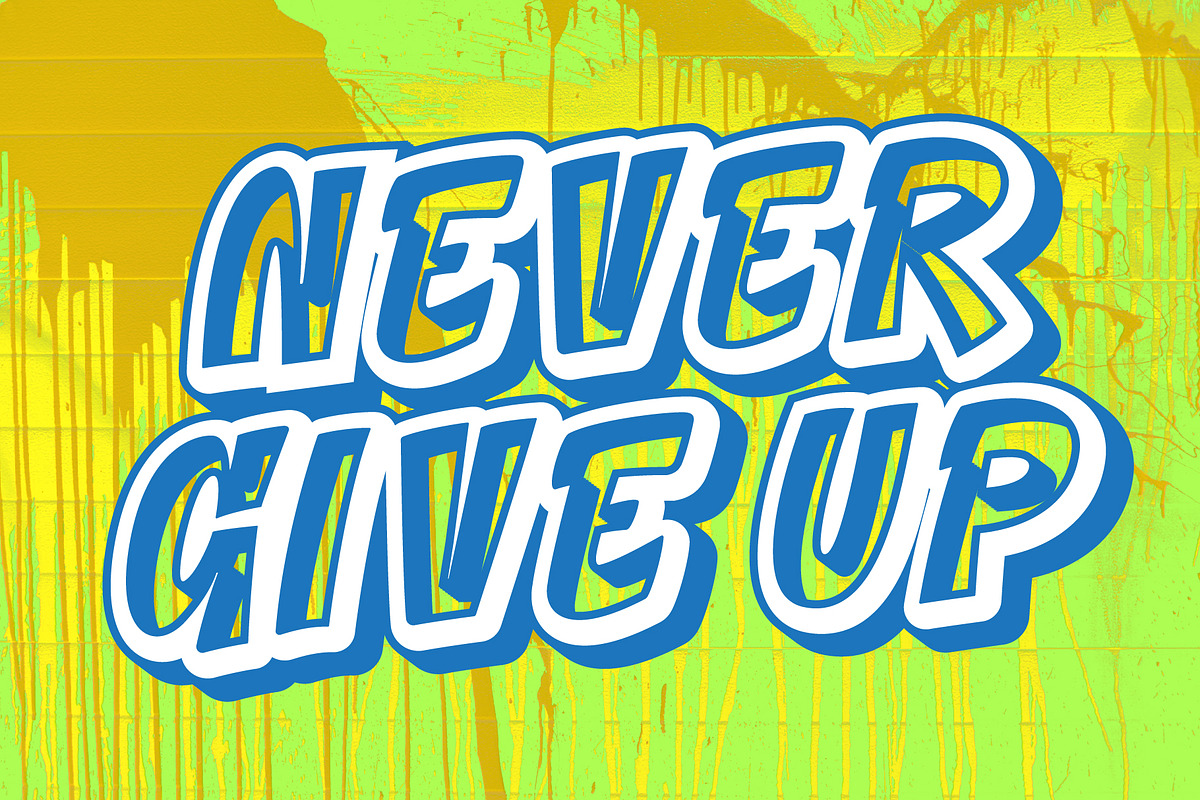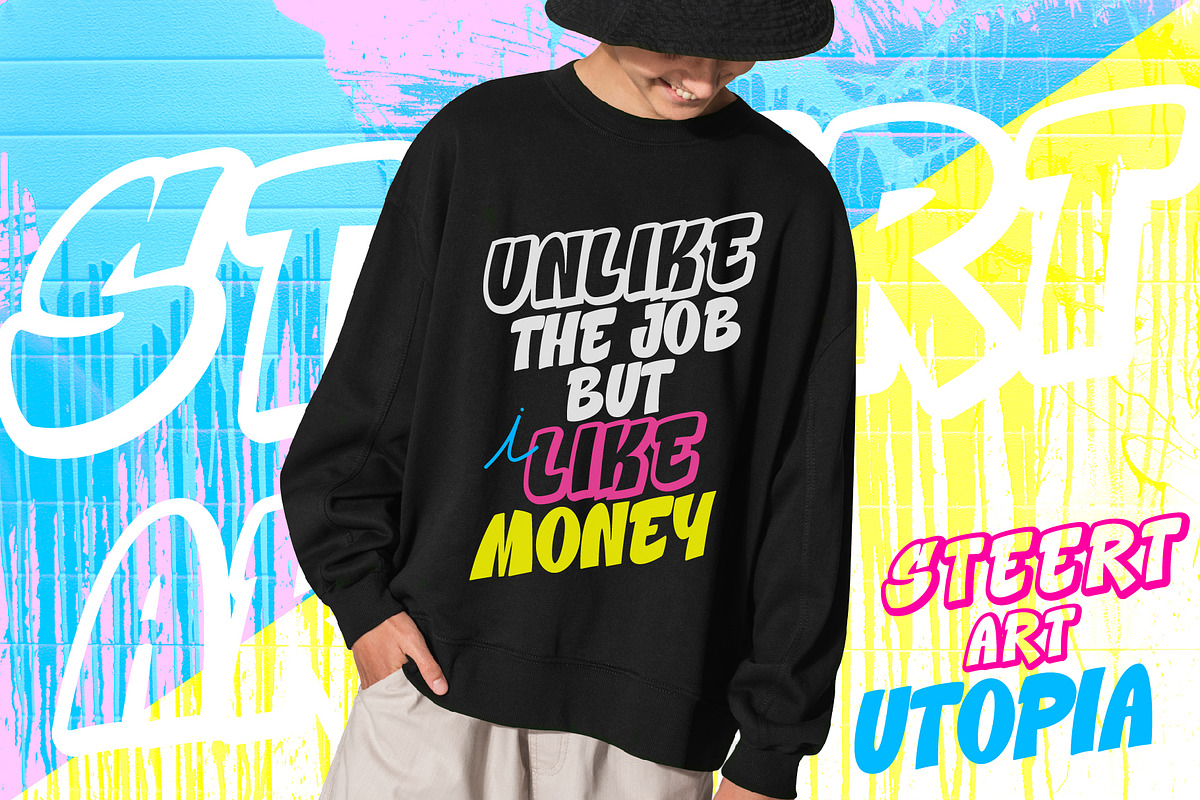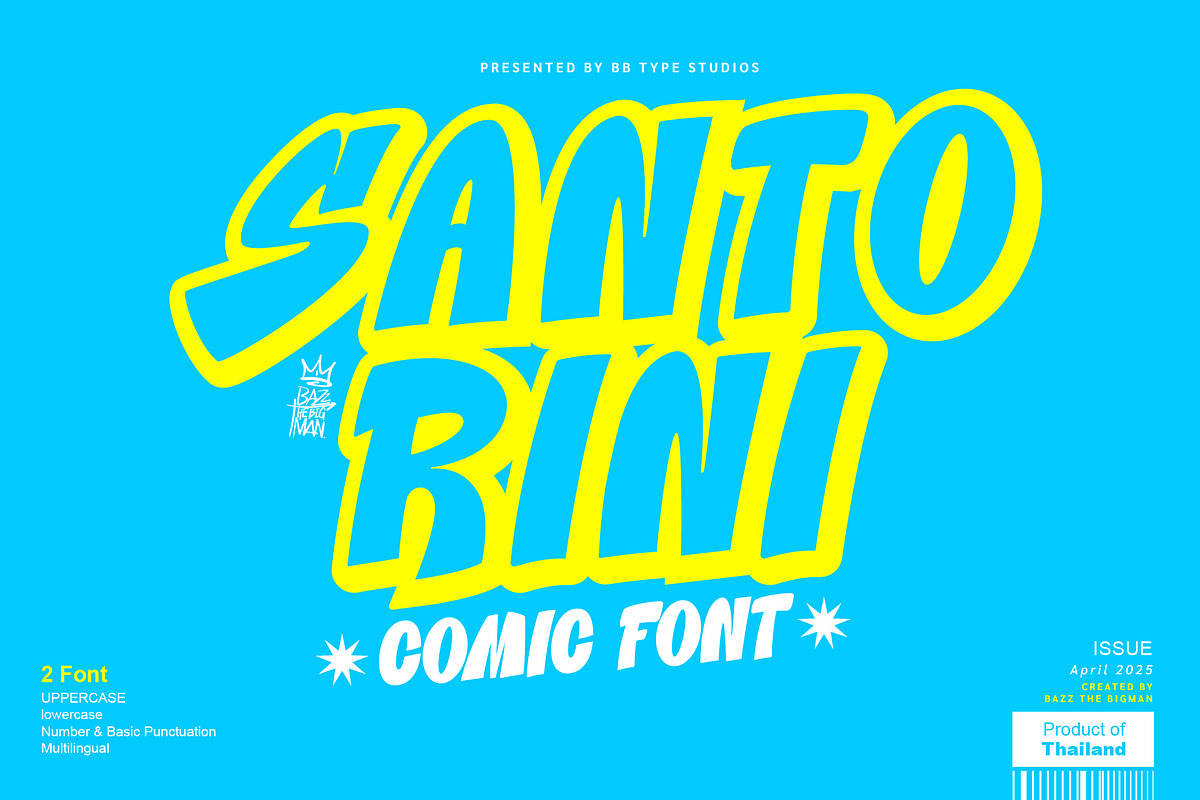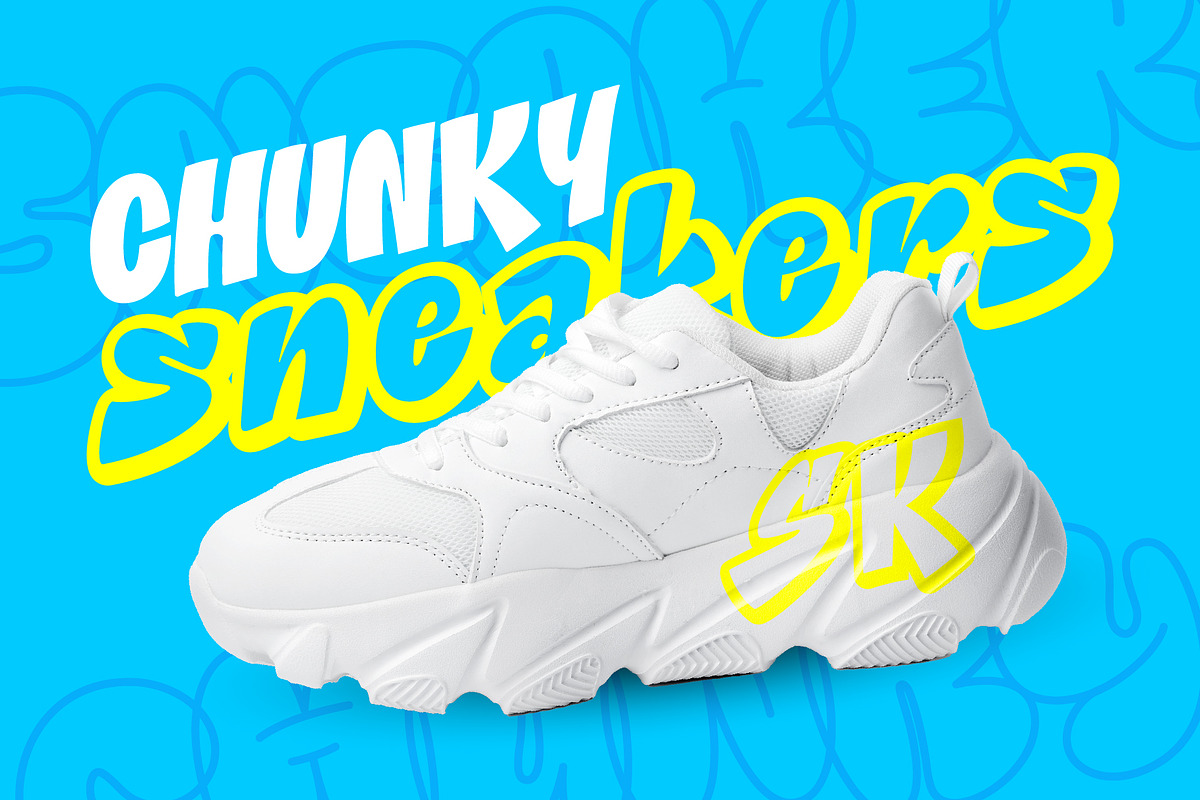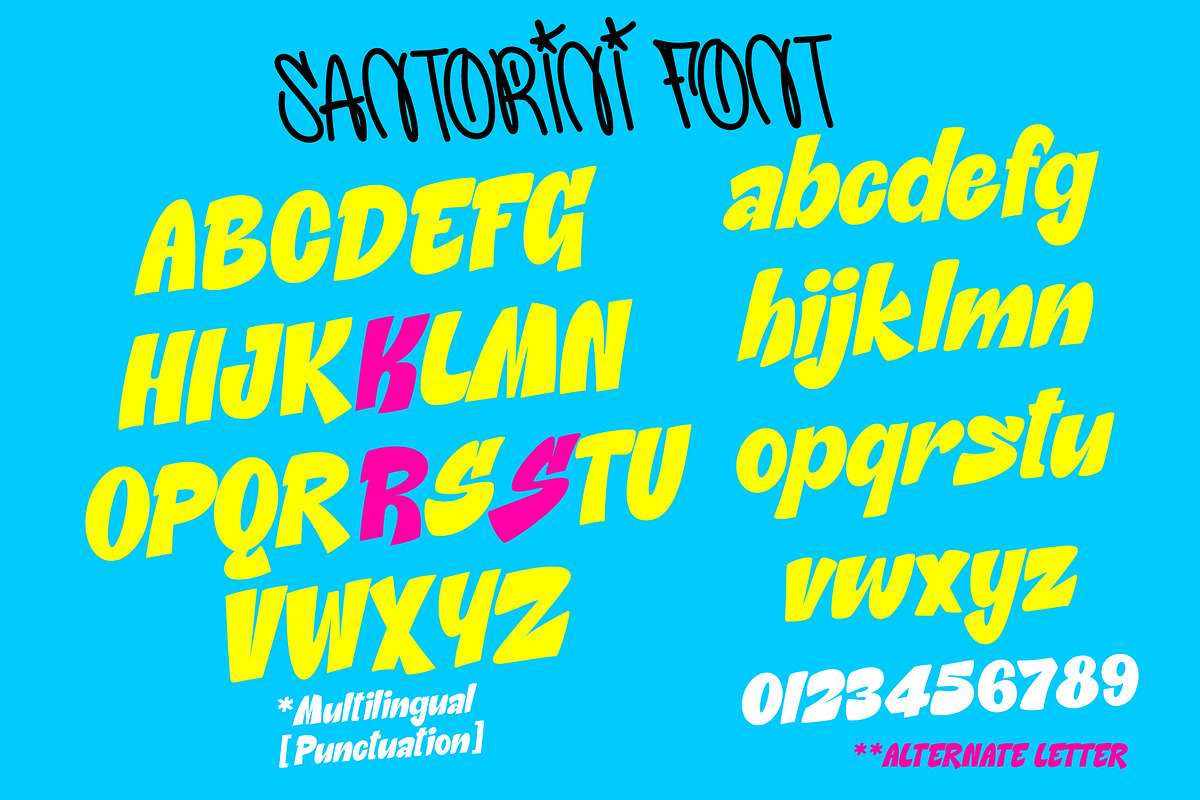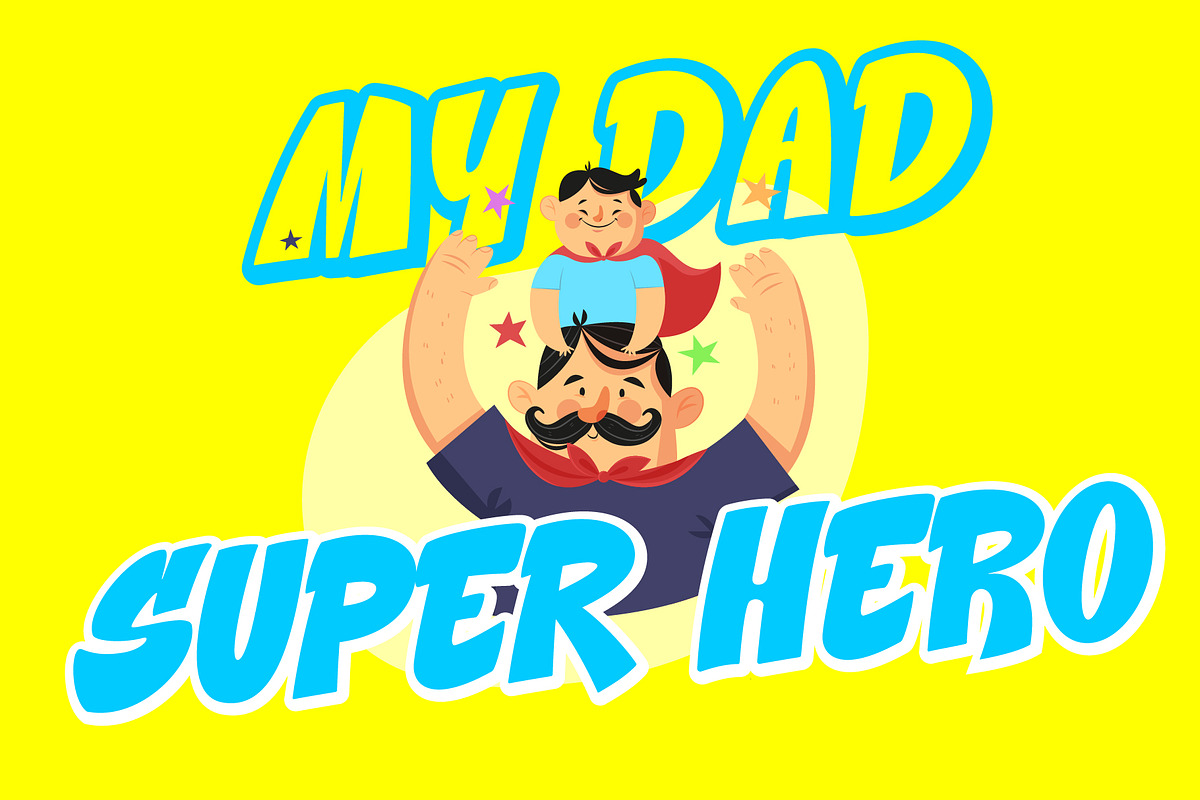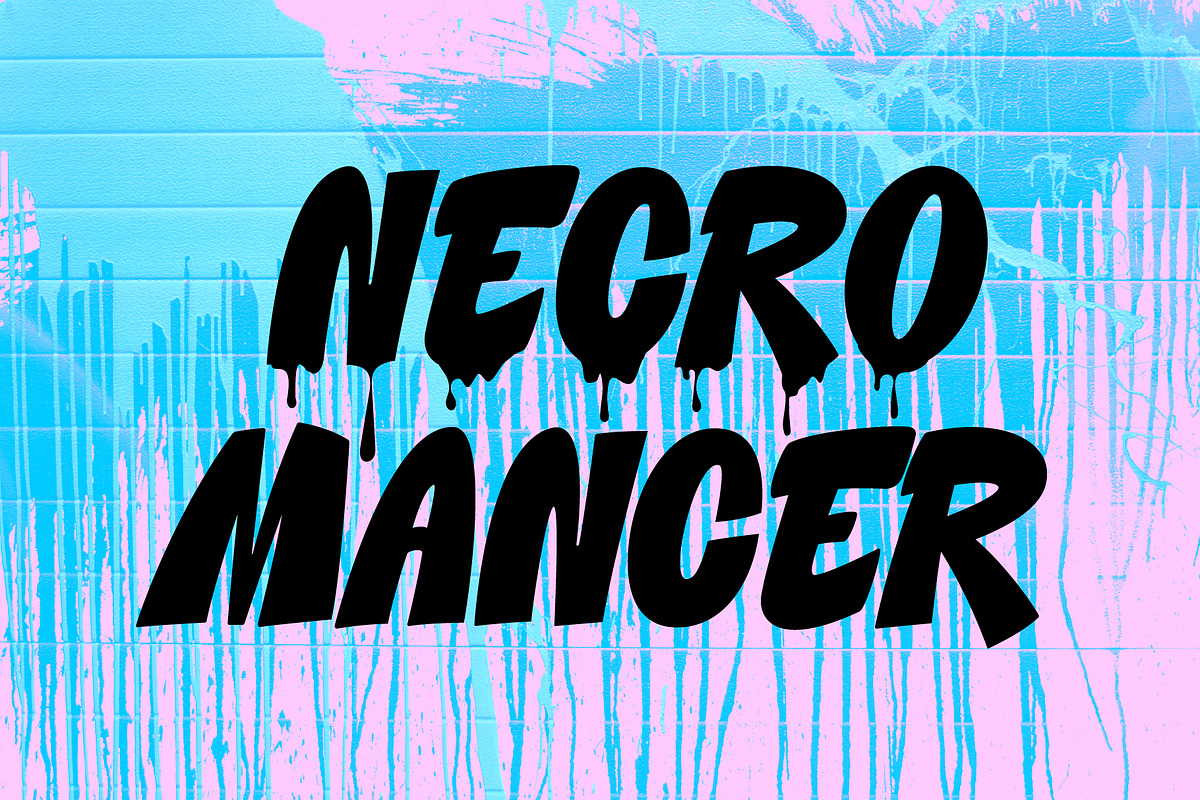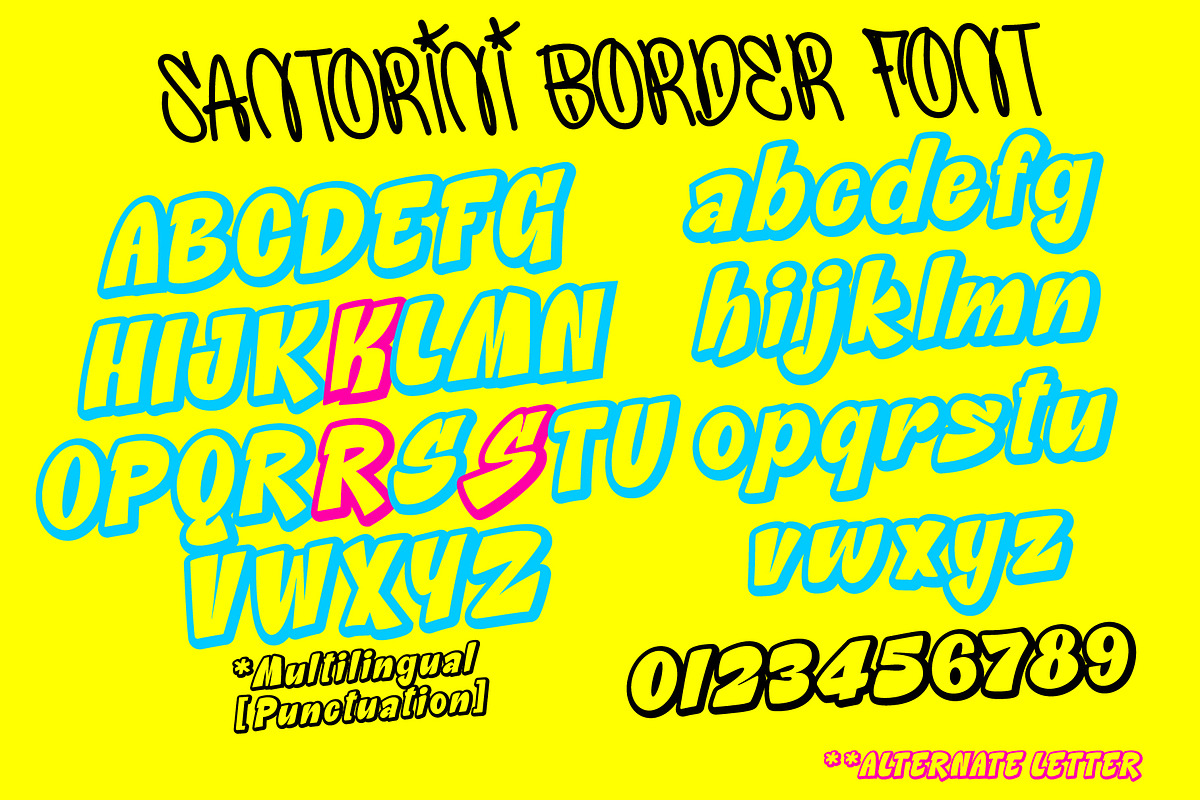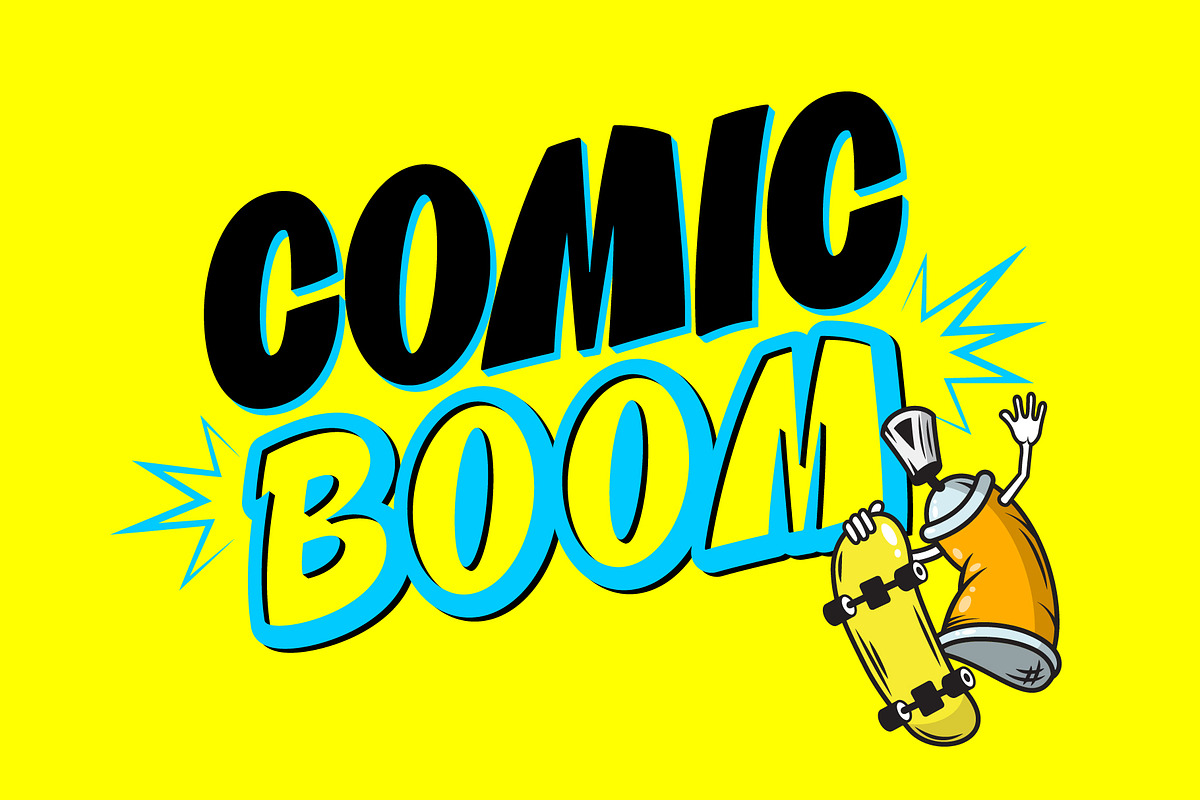
Santorini
Introducing Santorini, a delightfully whimsical and convivial display font. Infused with a spirited comic flair, Santorini is ideal for infusing a burst of joy into a variety of designs. From vibrant children's playthings to endearing cartoons, Santorini breathes a tender charm into every creation. Trust Santorini to be the exquisite choice that elevates your work with its unique touch of enchantment.